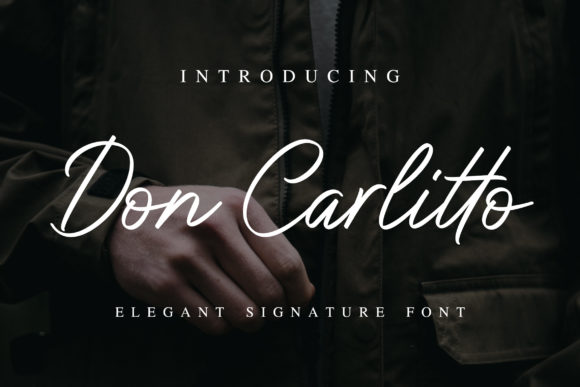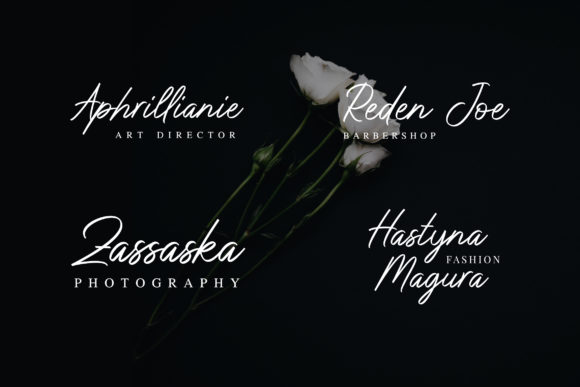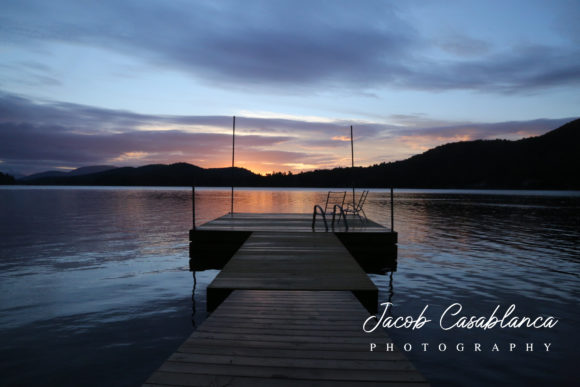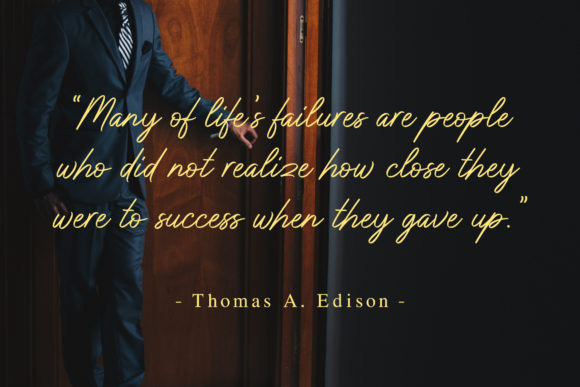
About Don Carlitto Font
Introducing Don Carlitto, a charming and elegant handwritten font that exudes sophistication and allure. Its versatile style makes it a perfect choice for a wide array of design projects, from enchanting wedding invitations to heartfelt thank you cards, captivating quotes, charming greeting cards, refined logos, and stylish business cards. Don Carlitto is the font that will enchant your designs and leave a lasting impression on all who behold it.
Don Carlitto’s charming and elegant strokes create an air of refinement and grace. Each letter is crafted with meticulous attention to detail, showcasing the font’s artistry and finesse. Whether you’re designing a grand wedding celebration or conveying heartfelt sentiments, Don Carlitto adds a touch of timeless beauty and authenticity to your projects.
With its stunning appeal, Don Carlitto becomes the centerpiece of wedding invitations, setting the tone for a celebration filled with romance and elegance.
In branding and logo design, Don Carlitto becomes a symbol of refined sophistication and charm. Its unique style allows you to create a brand identity that resonates with authenticity and allure.
Social media posts and quotes come to life with Don Carlitto. Its charming script adds an artistic flair, captivating your audience and inviting them to engage with your content.
Greeting cards and thank you notes become heartfelt expressions of emotion with Don Carlitto. The font’s elegant flow conveys sentiments with finesse, making your messages truly captivating.
In conclusion, Don Carlitto is more than just a font; it’s an embodiment of charm and elegance. With its charming and elegant style, Don Carlitto becomes an invaluable asset for all your design projects. Embrace the captivating allure of Don Carlitto and watch as your creations come alive with sophistication and grace. Let your imagination flourish in the charming and elegant embrace of Don Carlitto, the handwritten font that defines timeless allure and creative brilliance in every stroke.